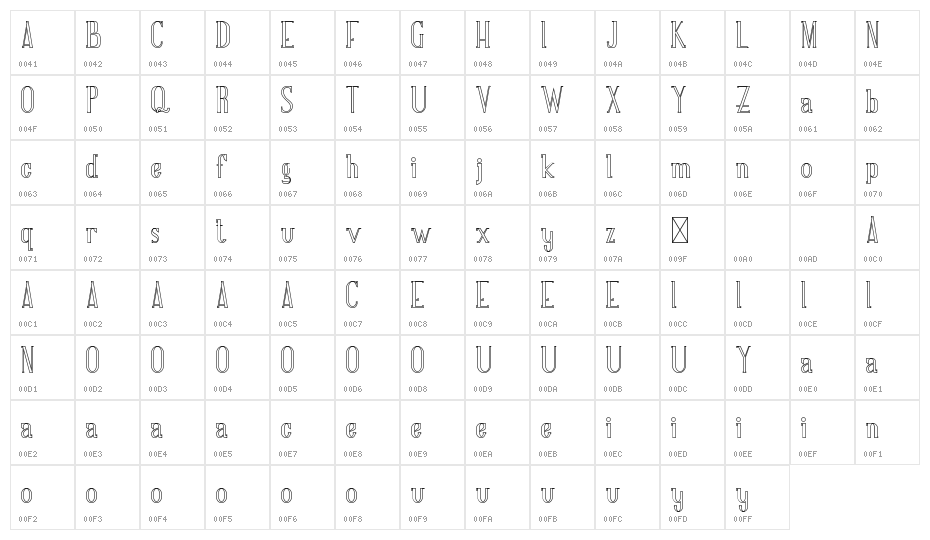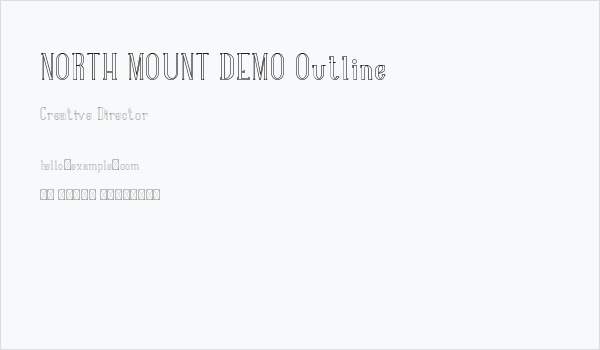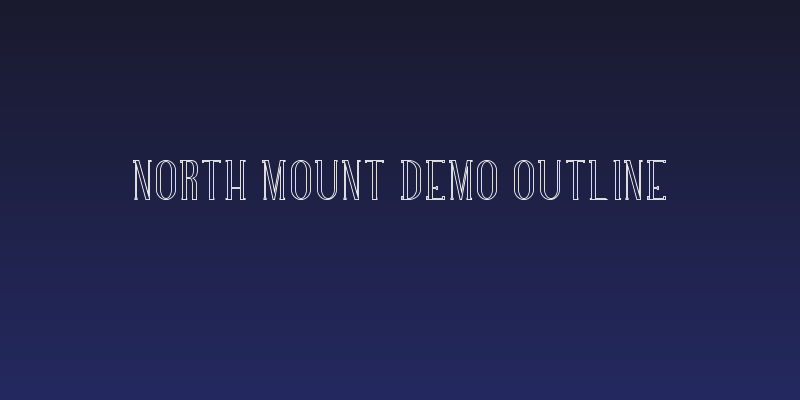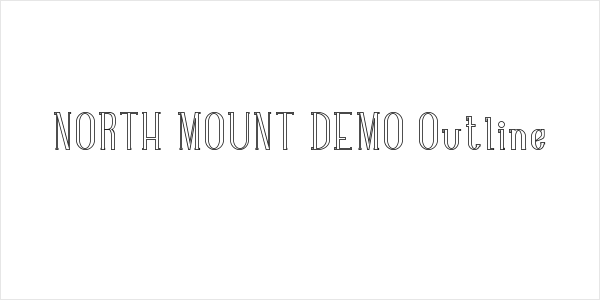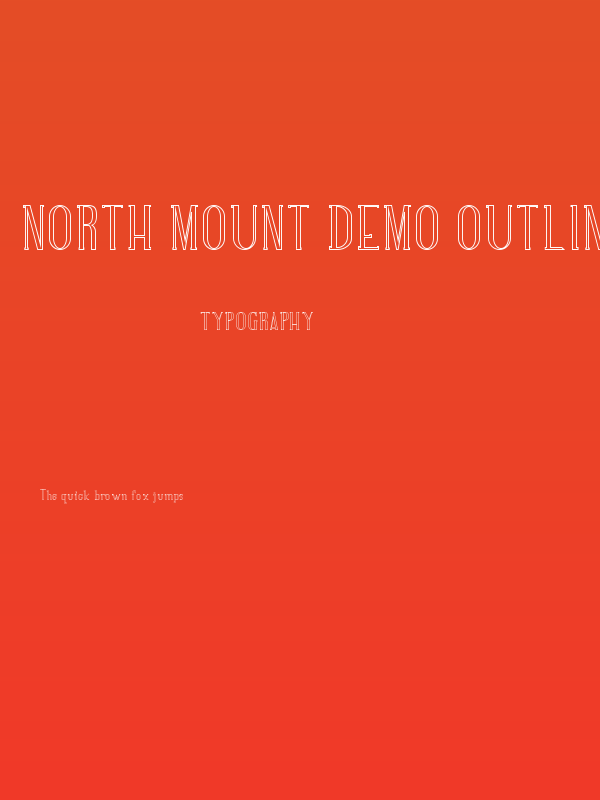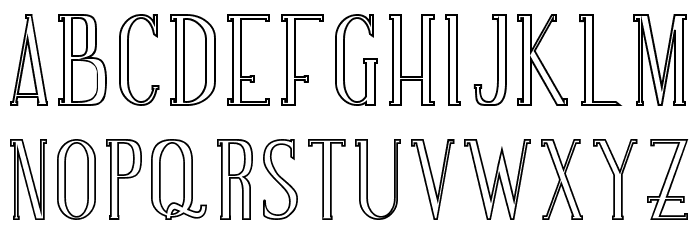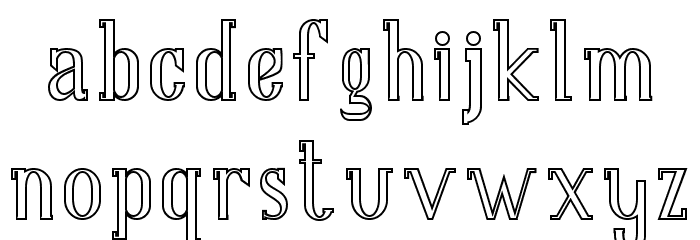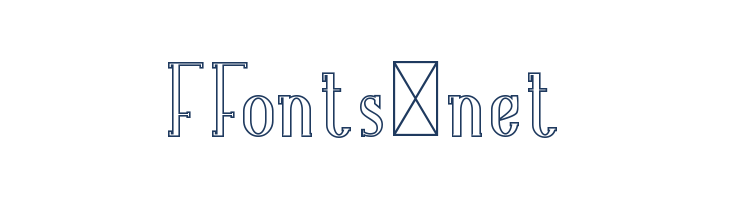
NORTH MOUNT DEMO Outline Font
This font features a distinctive outline style that combines elements of both serif and sans-serif characteristics. The uppercase letters are tall and elegant, with subtle serifs that add a touch of sophistication. The lowercase letters maintain a consistent style, offering a harmonious blend with the uppercase set. The numerals and special characters are designed to match the overall aesthetic, providing a cohesive look. The font's outline nature gives it a unique, airy appearance, making it suitable for creative and artistic projects. Its clean lines and balanced proportions ensure readability while maintaining a stylish edge.
| Proposed Projects | Ideal for branding, poster design, headlines, and creative projects that require a modern yet classic touch. |